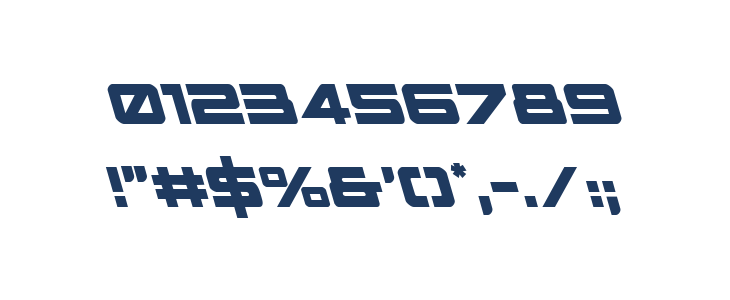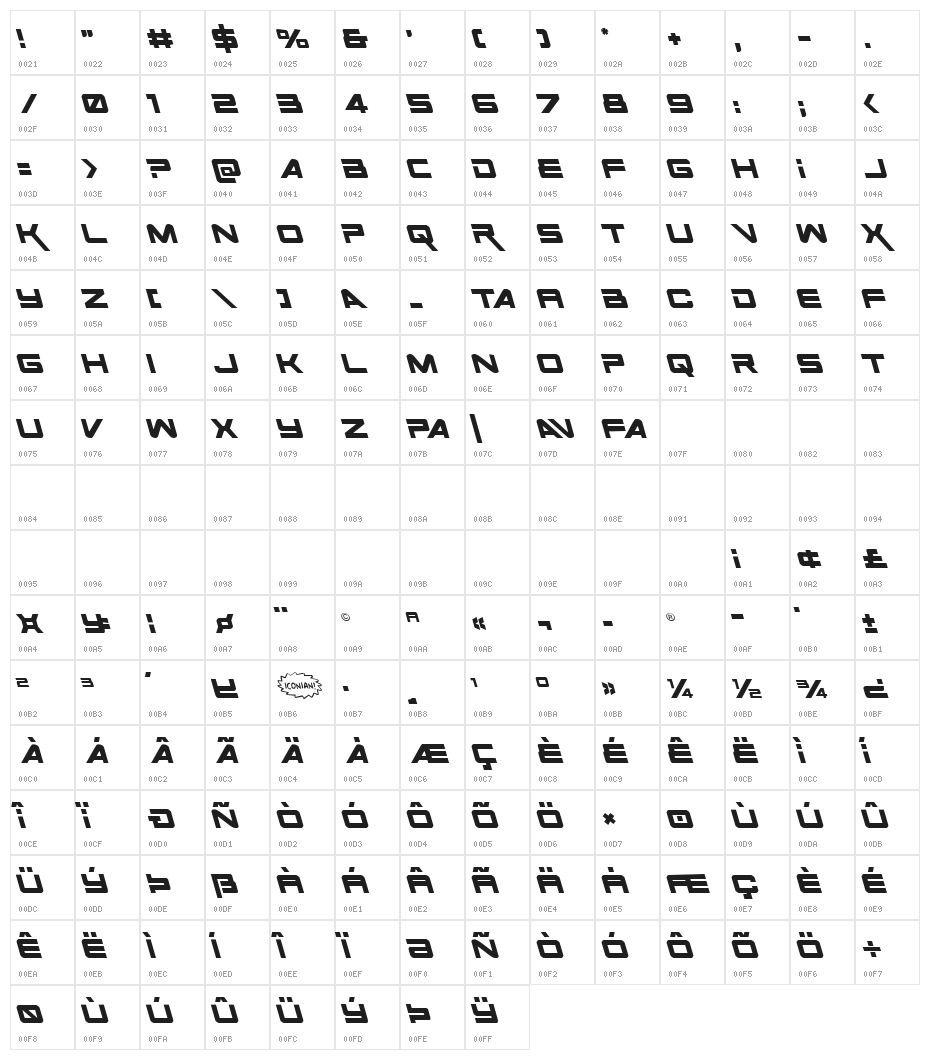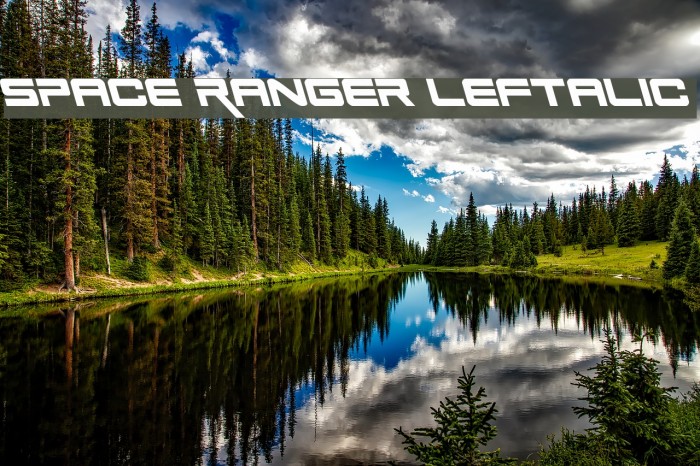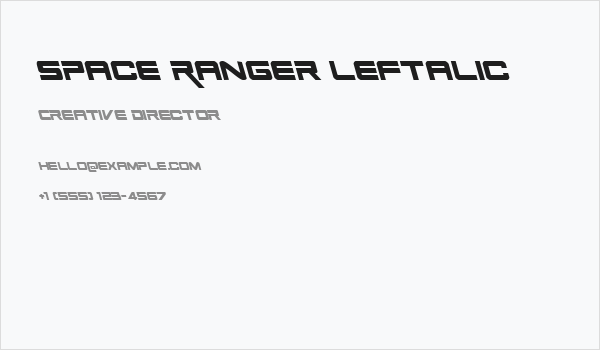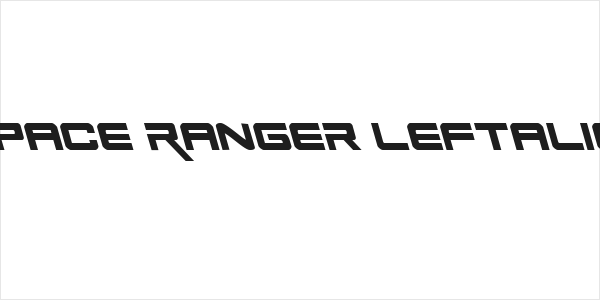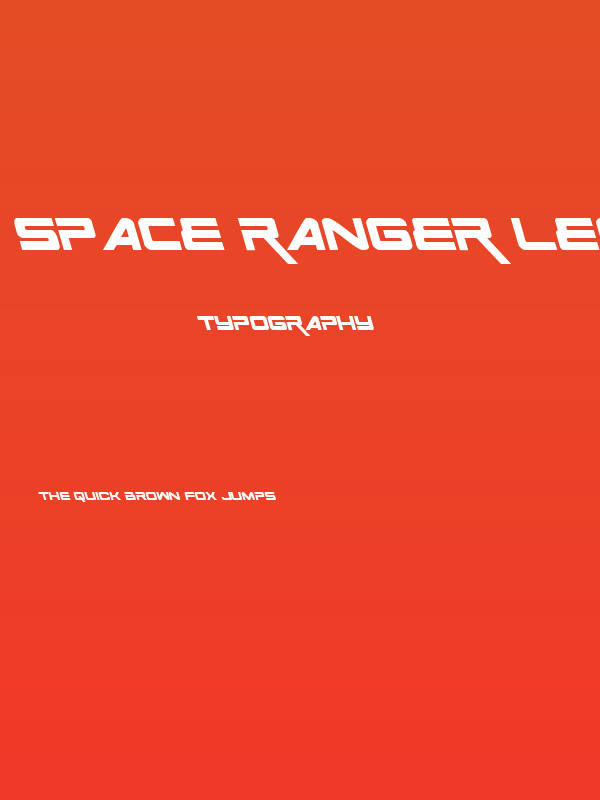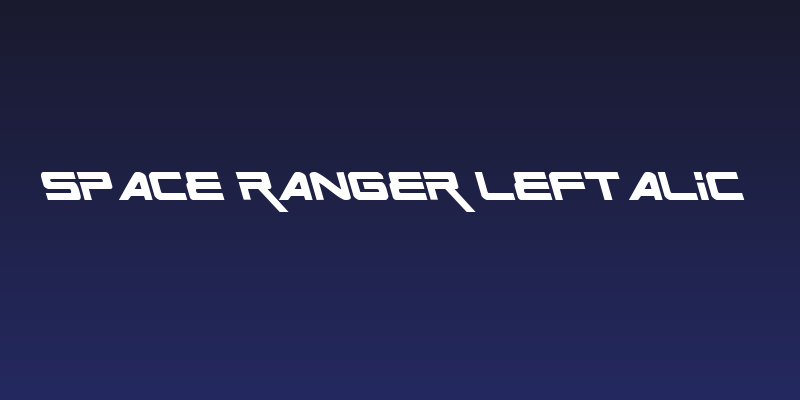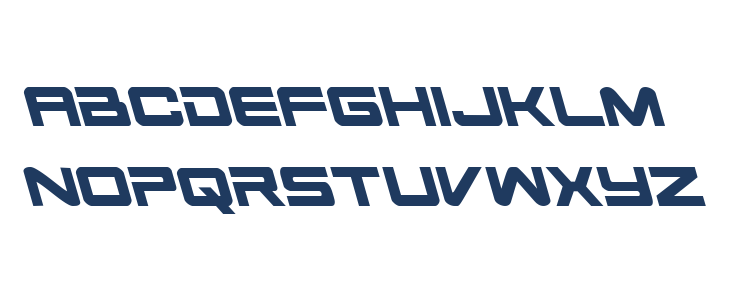
Space Ranger Leftalic Font
Space Ranger Leftalic Description
This font features a futuristic and angular design, characterized by sharp edges and a bold presence. The letters are slightly italicized, giving a dynamic and forward-moving appearance. The uppercase and lowercase letters maintain a consistent style, with geometric shapes and a sense of motion. Numbers and special characters are designed to match the overall aesthetic, ensuring uniformity across all glyphs. The font's unique style makes it suitable for projects that require a modern and tech-inspired look.
| Proposed Projects | Ideal for sci-fi themed designs, video game titles, tech branding, and futuristic posters. |